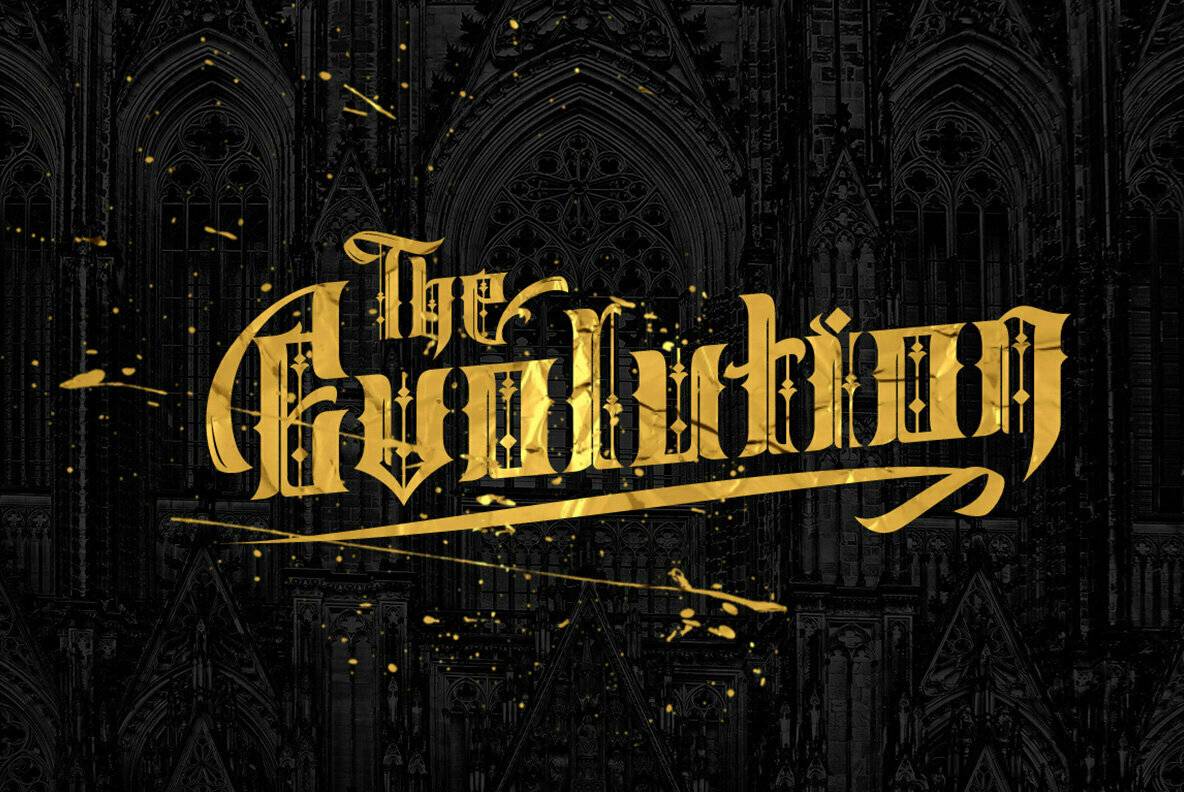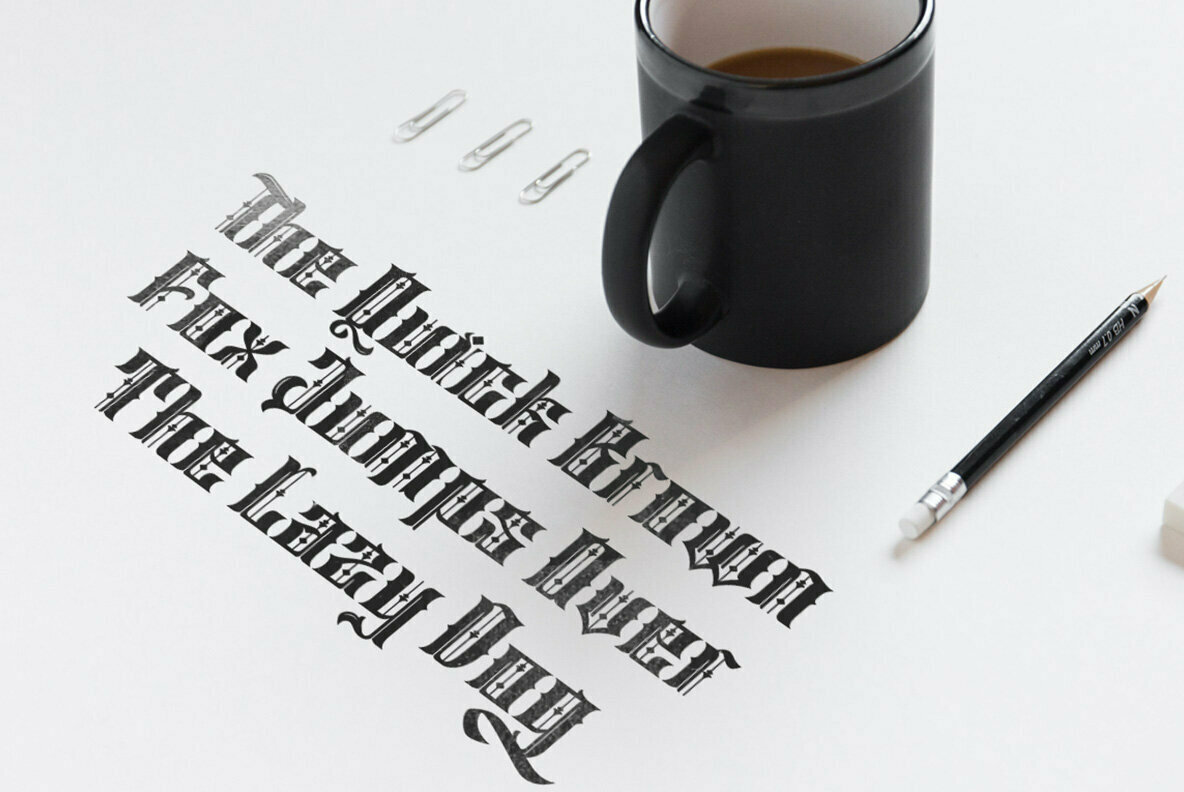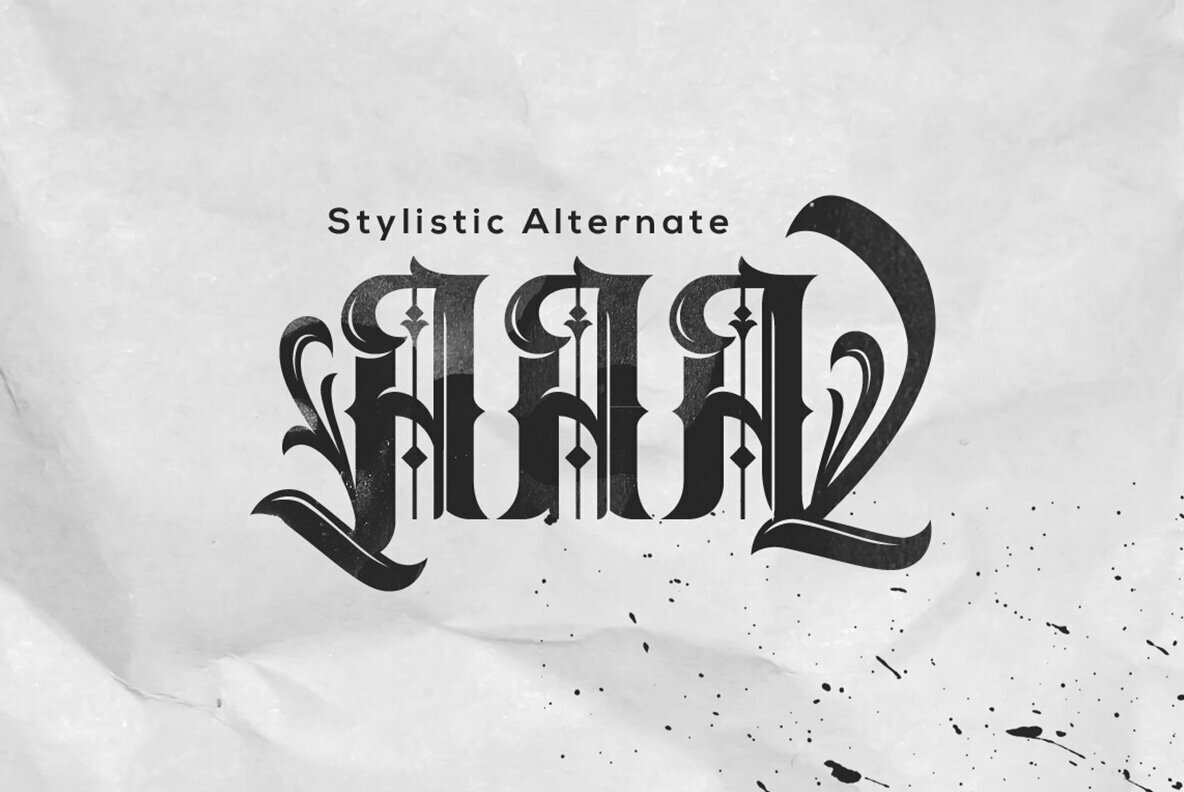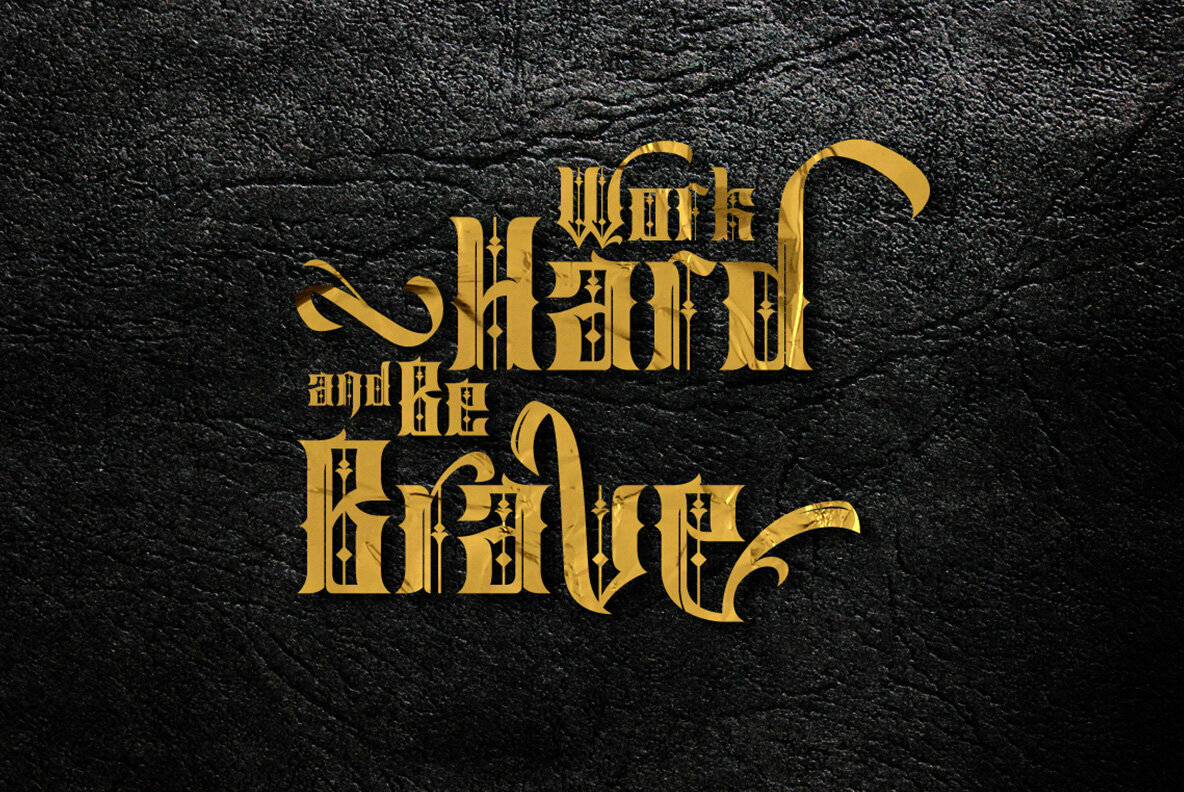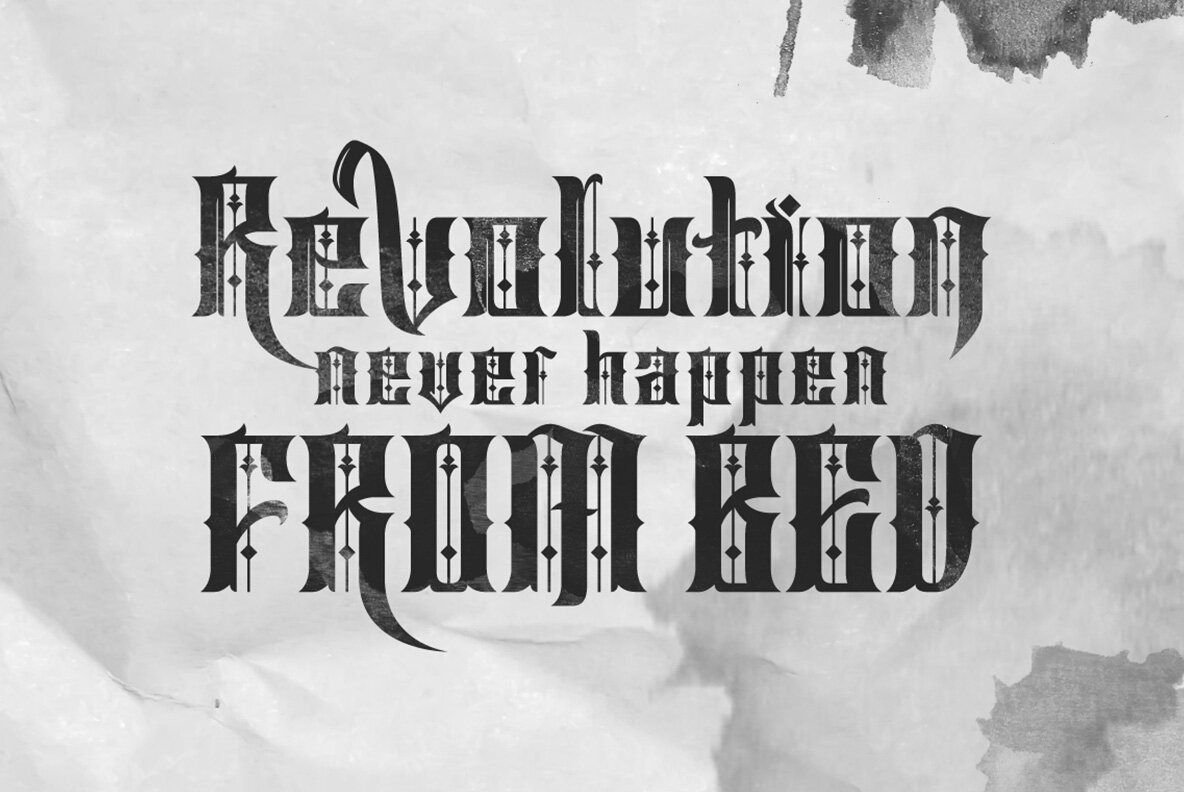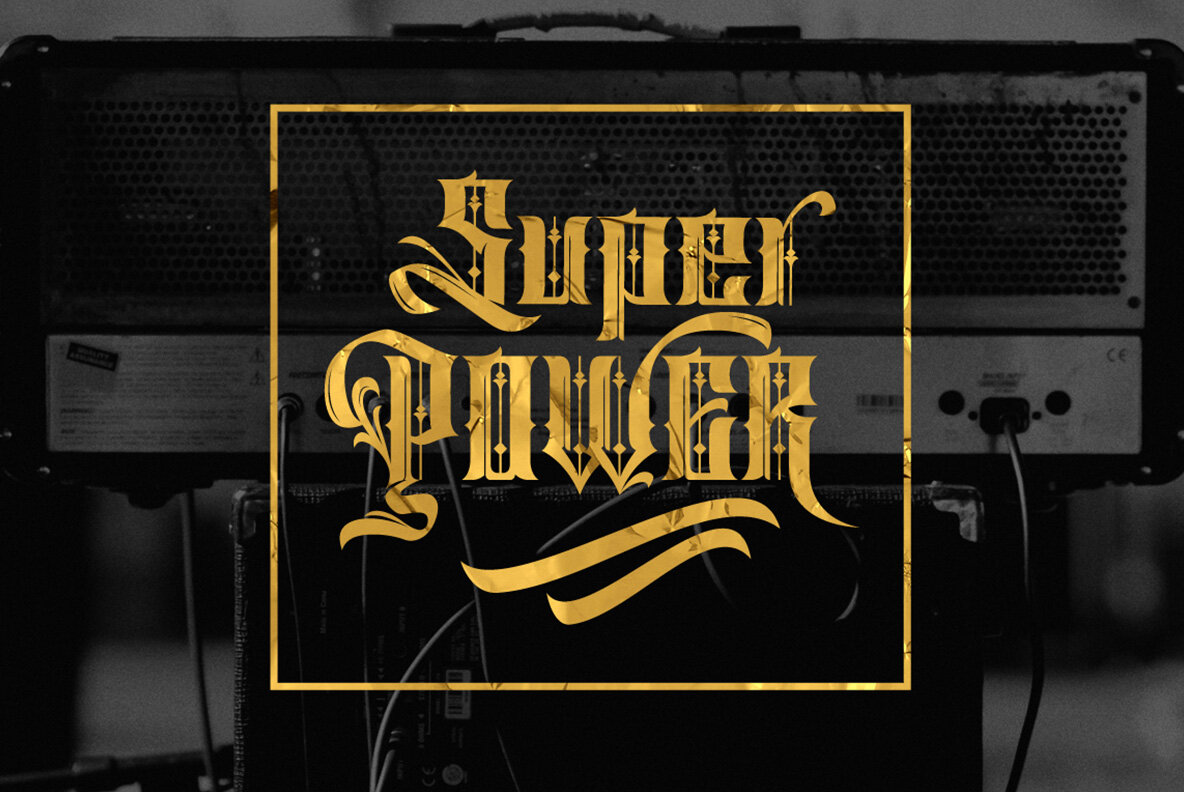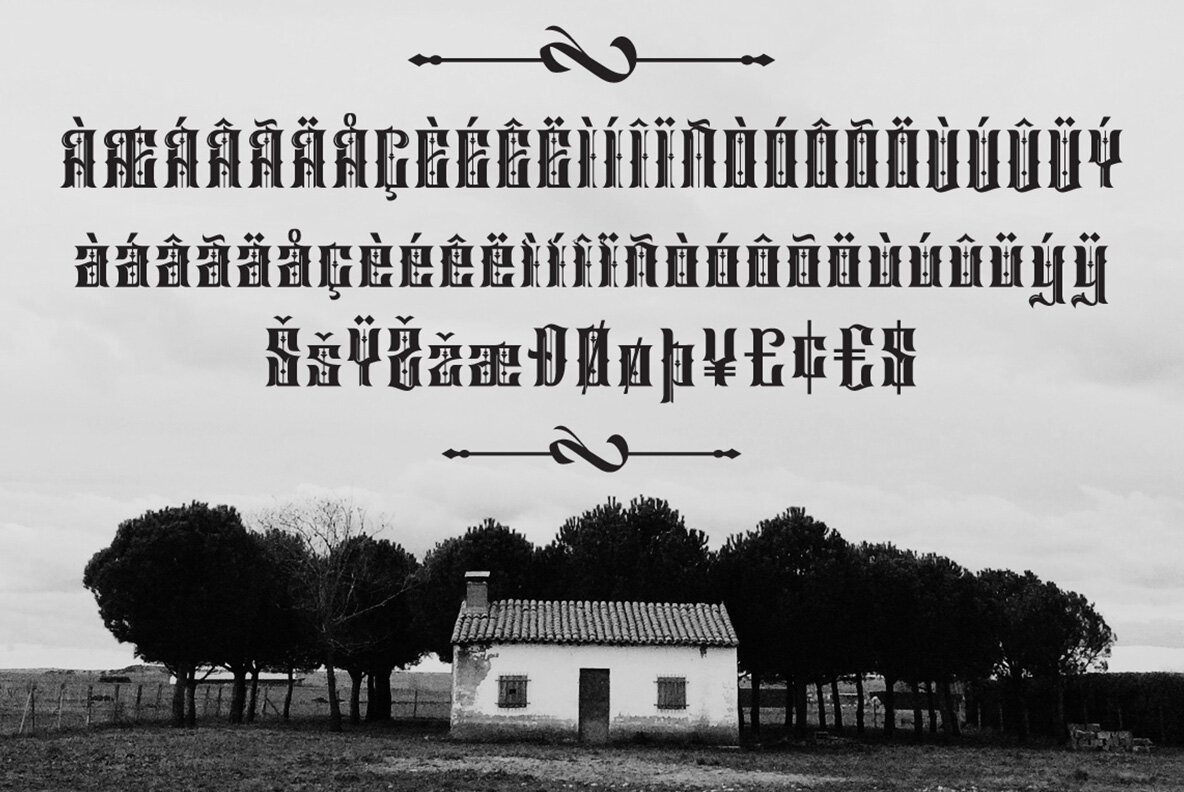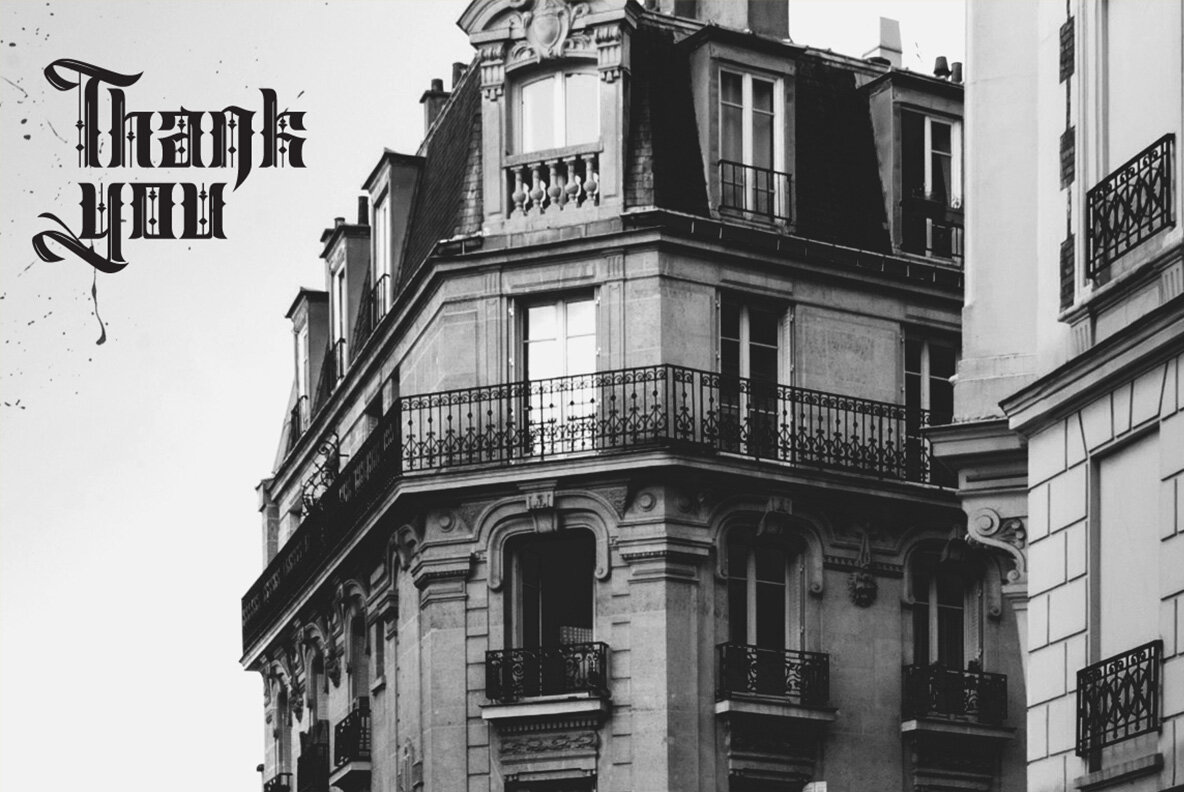
Sirunian Font
Sirunian by Ahmad Ramzi Fahruddin introduces a distinctive blackletter typeface that carries an innovative twist. Designed for impactful headlines and displays, Sirunian stands out with its striking character and modern adaptability.Sirunian Font: Blackletter with Experimental Flair